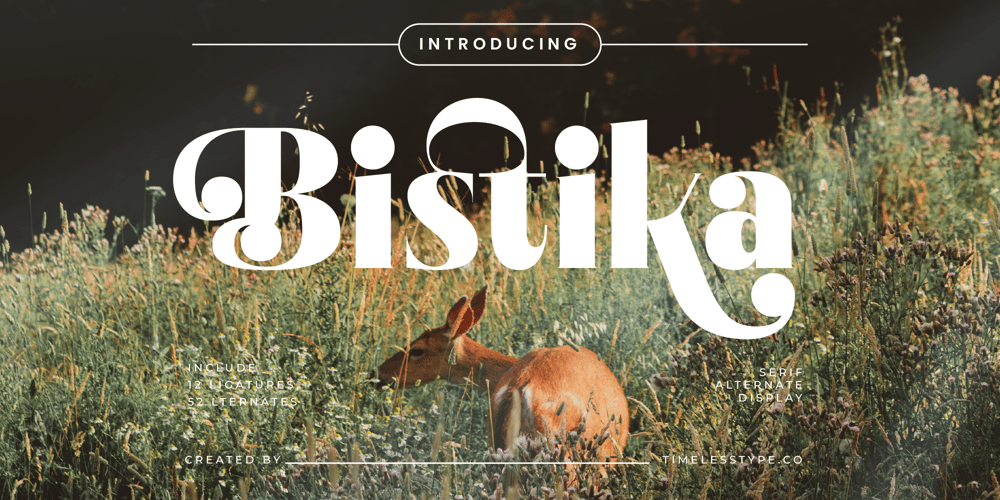
Bistika Font Family was designed by Heru Utama Putra and published by Timelesstype Studio. Bistika contains 2 styles and family package options. Bistika – Serif Alternate Display , from Timelesstype , Suitable for any projects such as: logos, branding projects, homeware designs, product packaging, mugs, quotes, posters, shopping bags, t-shirts, book covers, name card, invitation cards, greeting cards, label, photography, watermark, special events, and all your other luxury and beautiful projects that need a Luxury Serif taste.